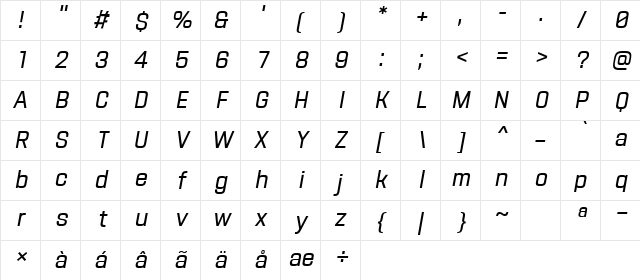
Complete Navine Demo SemCond Ita Italic glyph index. Displaying only characters natively supported by Navine Demo SemCond Ita Italic font.
Navine Demo SemCond Ita is a composed and adaptable typeface that performs quietly and consistently across a wide range of design contexts. The slanted form adds forward momentum and visual energy. Its narrow stance lets it pack a punch even in space-constrained designs.
Pro Tip: Use Navine Demo SemCond Ita for emphasis, pull quotes, and subheadings where its slanted energy can add rhythm to the layout.